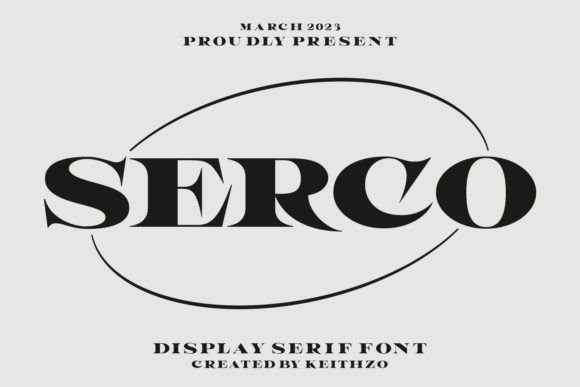
Dive into the realm of retro aesthetics with Serco Font, a serif font that embodies the groovy spirit of the past. Its clean lines, geometric shapes, and stylish curves dance together to create a nostalgic yet modern vibe that will make your designs stand out.
Serco Font is more than just a font; it's a time machine that transports you back to an era of eye-catching logos, vibrant posters, and captivating headlines. Its bold and dynamic personality breathes new life into your creative projects, giving them a sense of timeless style that resonates with audiences.
Step into the Serco Font universe and explore its diverse range of applications. From logos that demand attention to headlines that command presence, Serco Font is the perfect choice for designers seeking a touch of retro flair. Its versatility extends to posters, social media graphics, and branding materials, allowing you to weave a cohesive visual narrative that captivates and engages.
With Serco Font, you're not just downloading a font; you're joining a creative revolution. Unleash your imagination and let the groovy aesthetics of Serco Font guide you to design masterpieces that leave a lasting impression. Embrace the past, embrace the future, and embrace the power of Serco Font.
Why settle for ordinary when you can embrace the extraordinary? Serco Font is more than just a font; it's an experience. A journey through time, a canvas for creativity, and a gateway to a world of design possibilities. Don't just download a font; download a piece of history, a spark of inspiration, and a font that will ignite your creative fire.